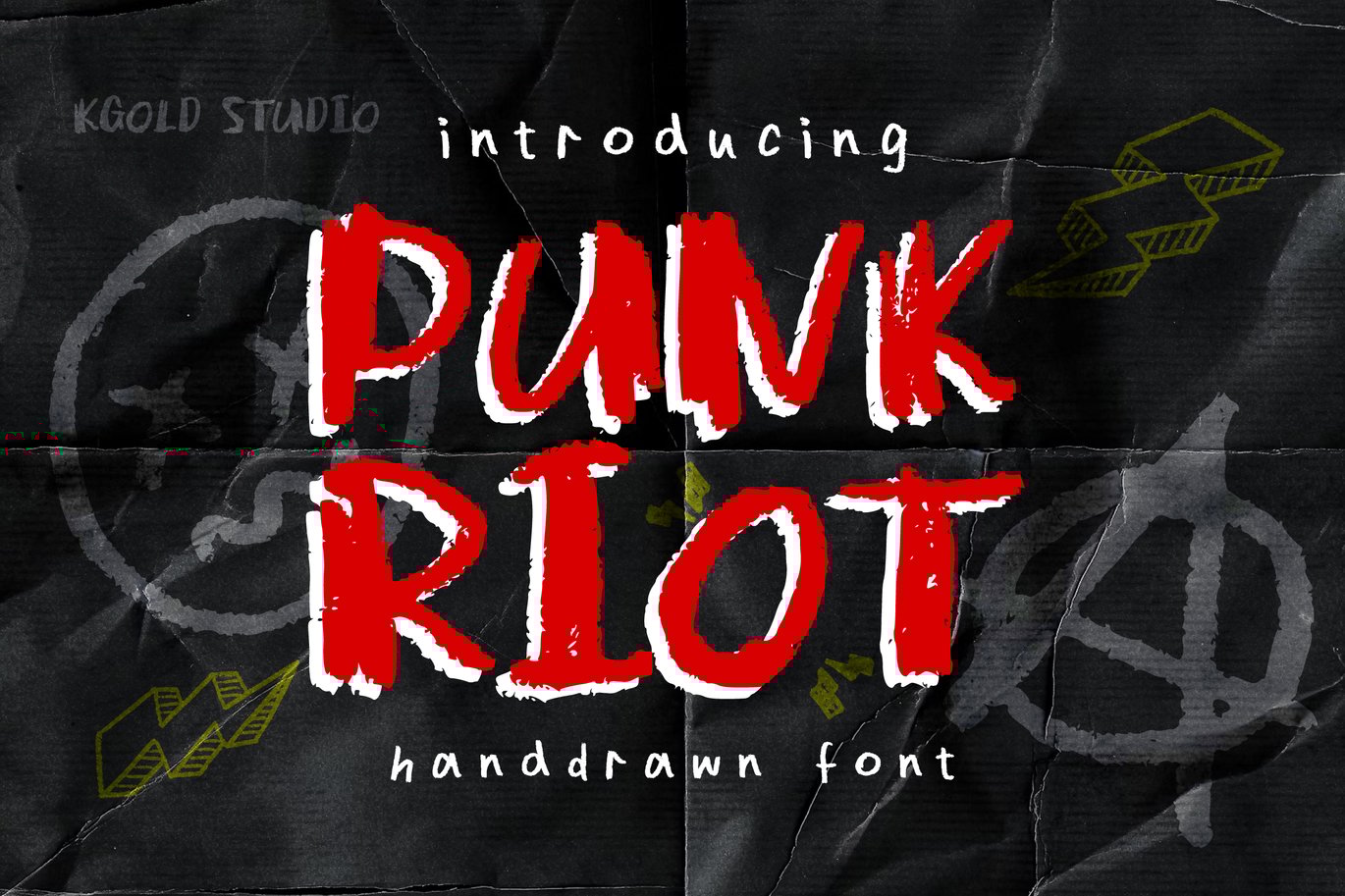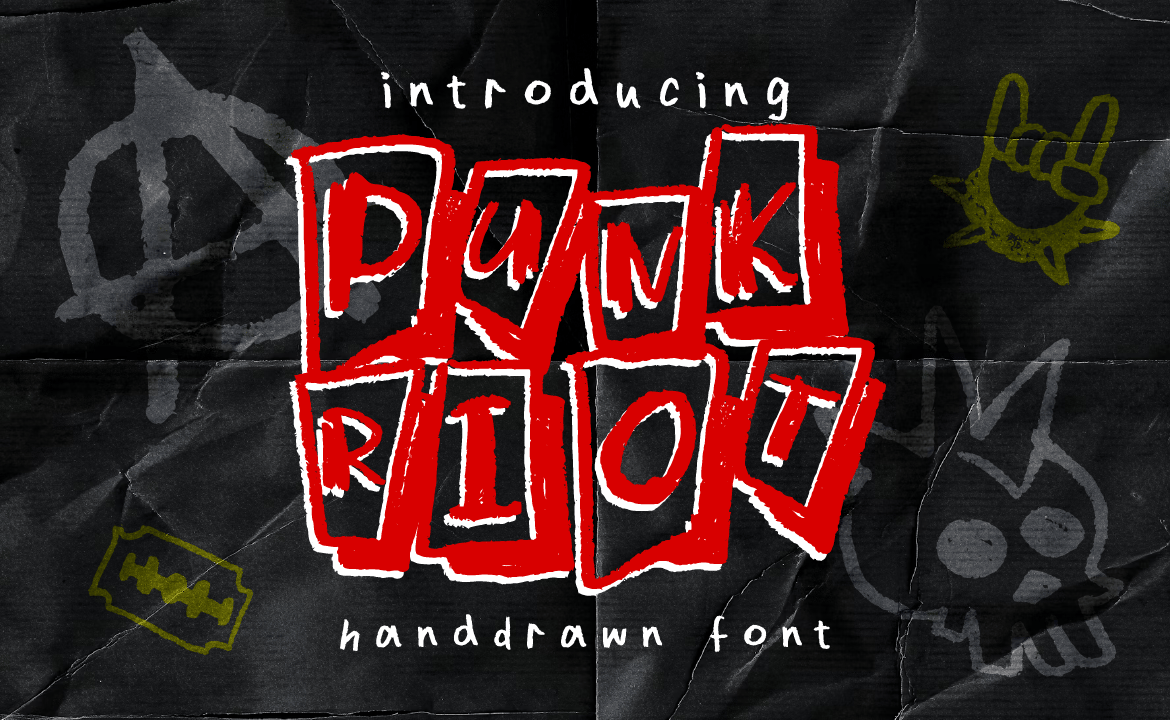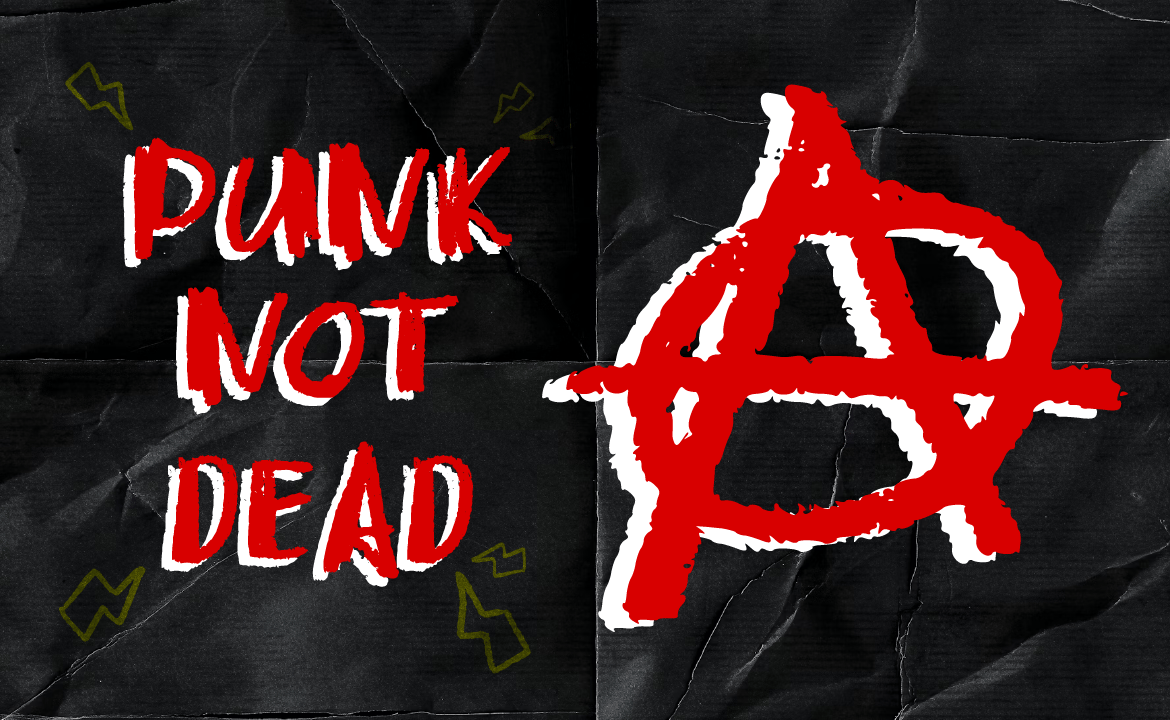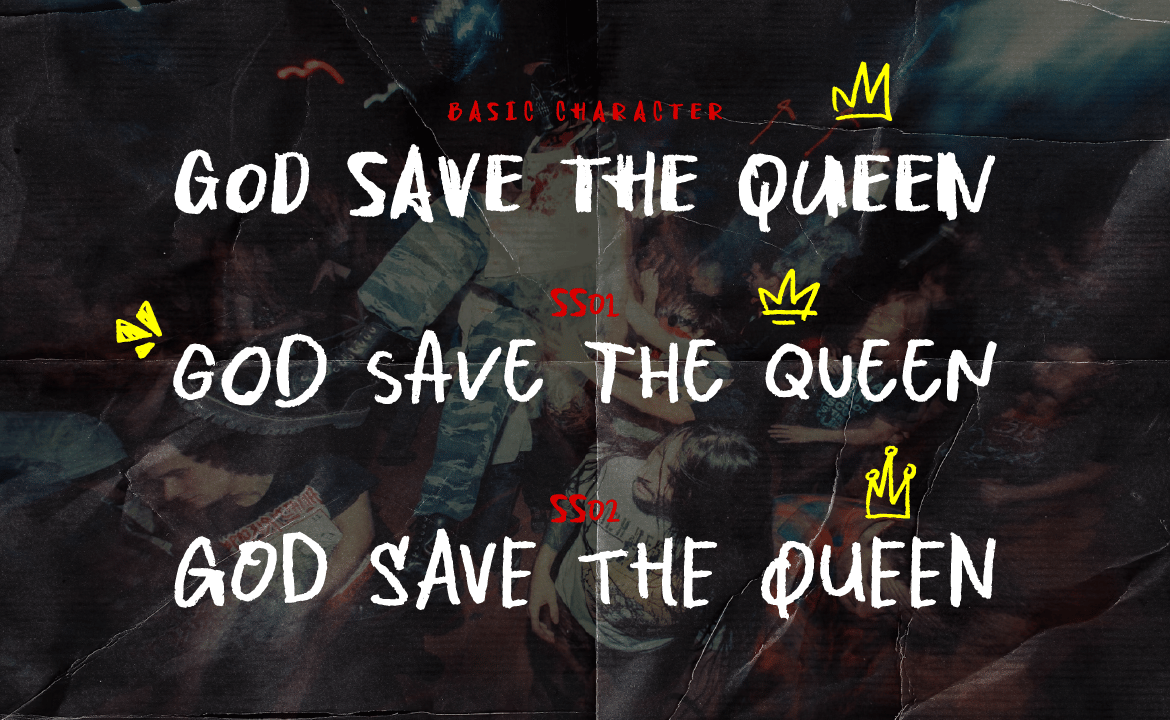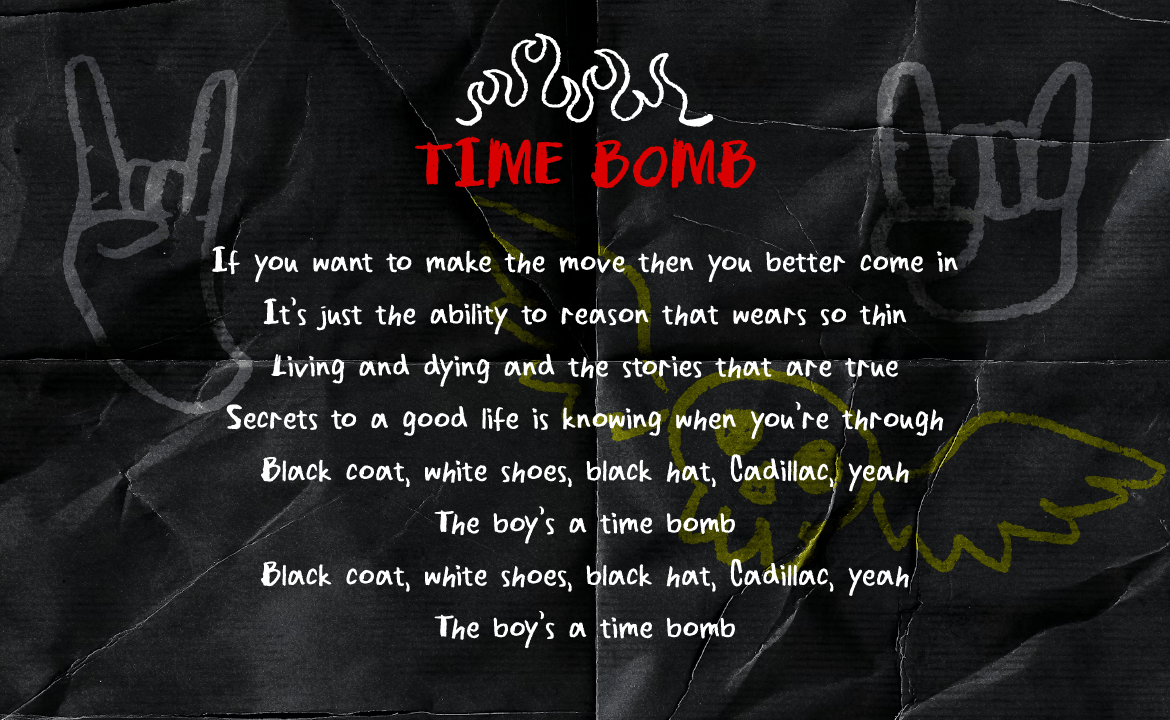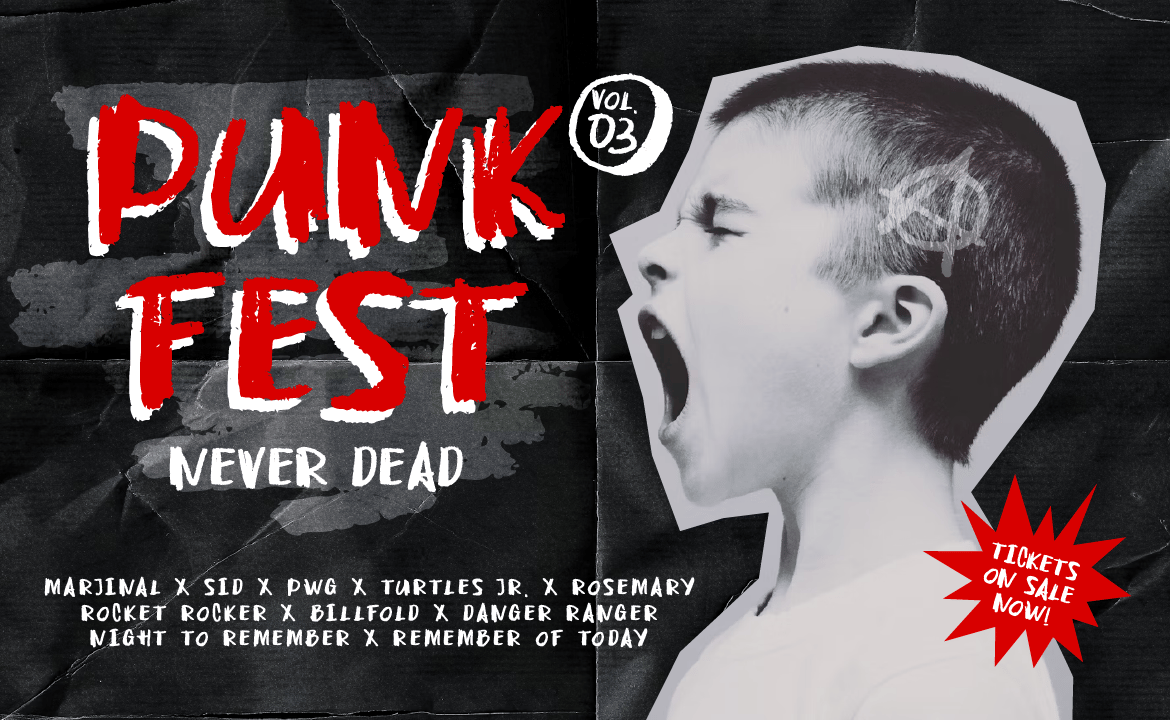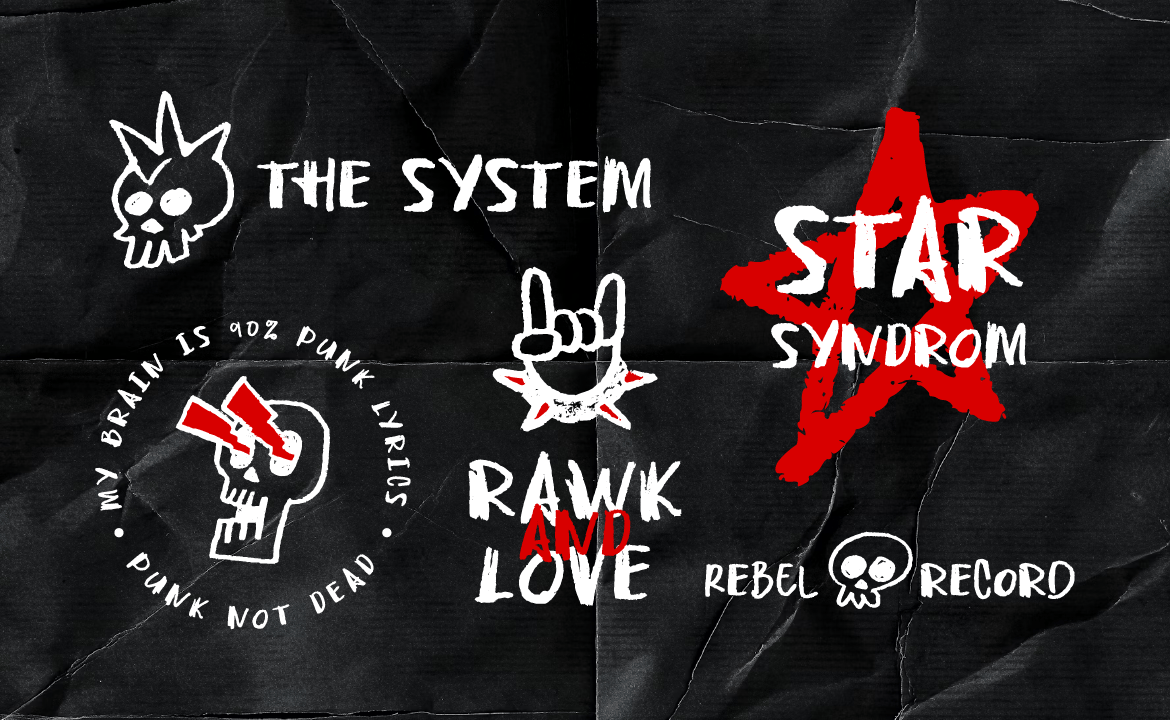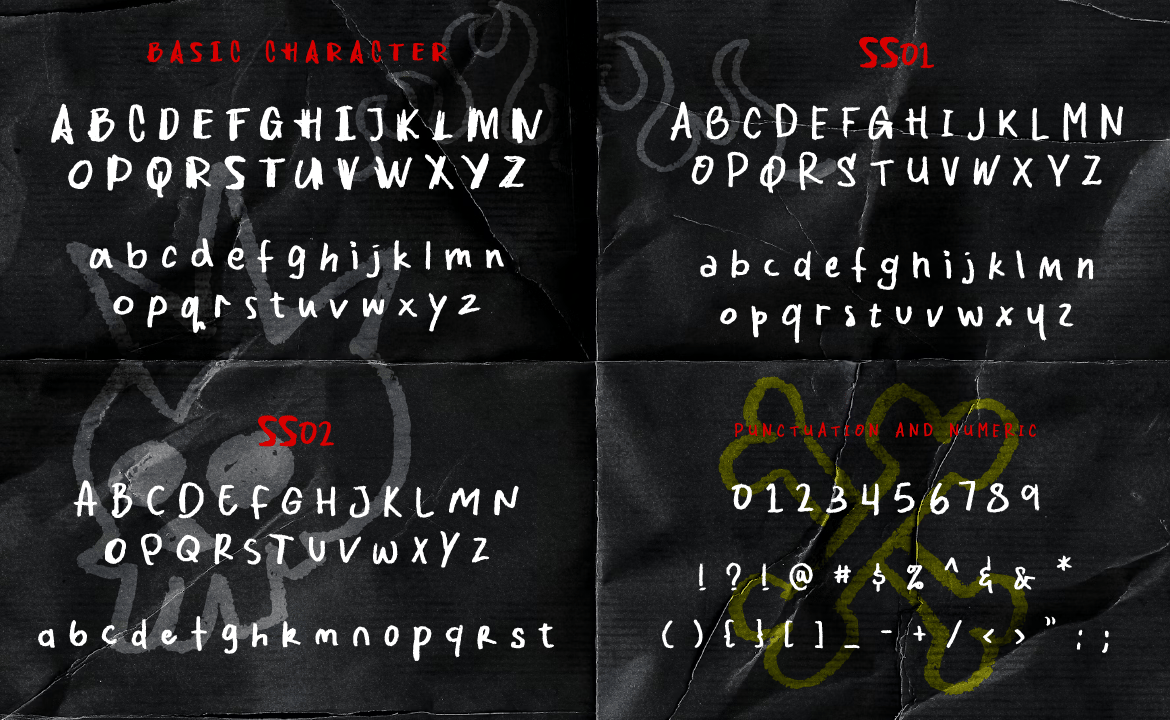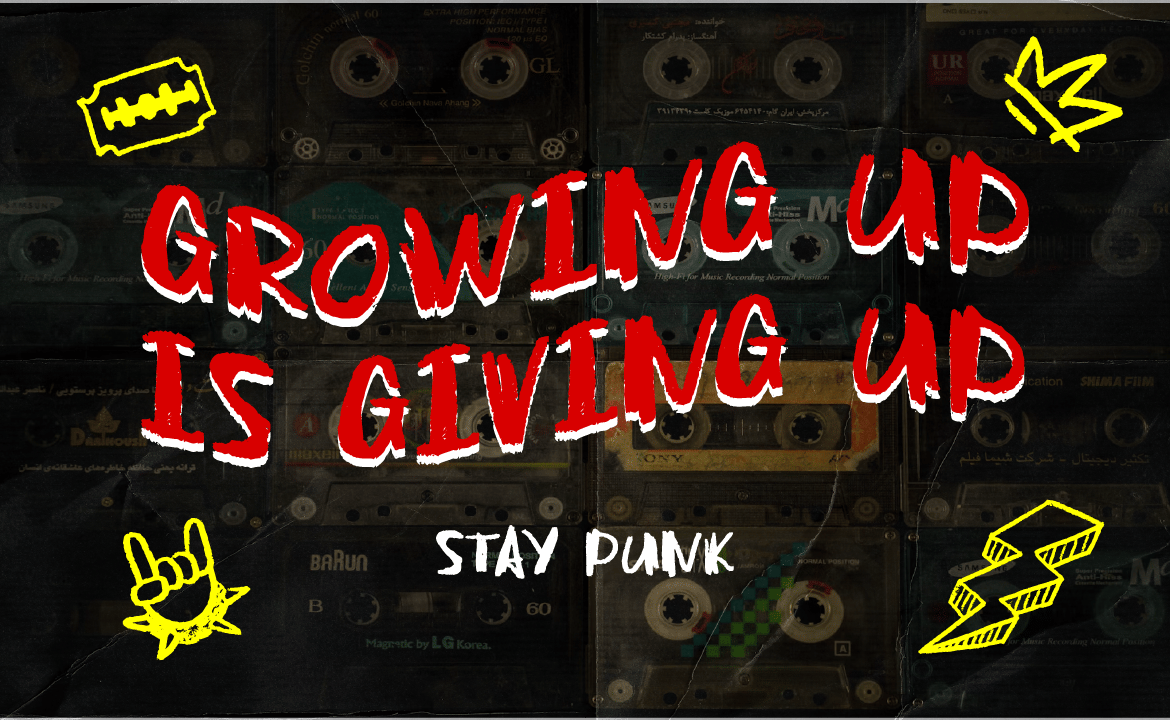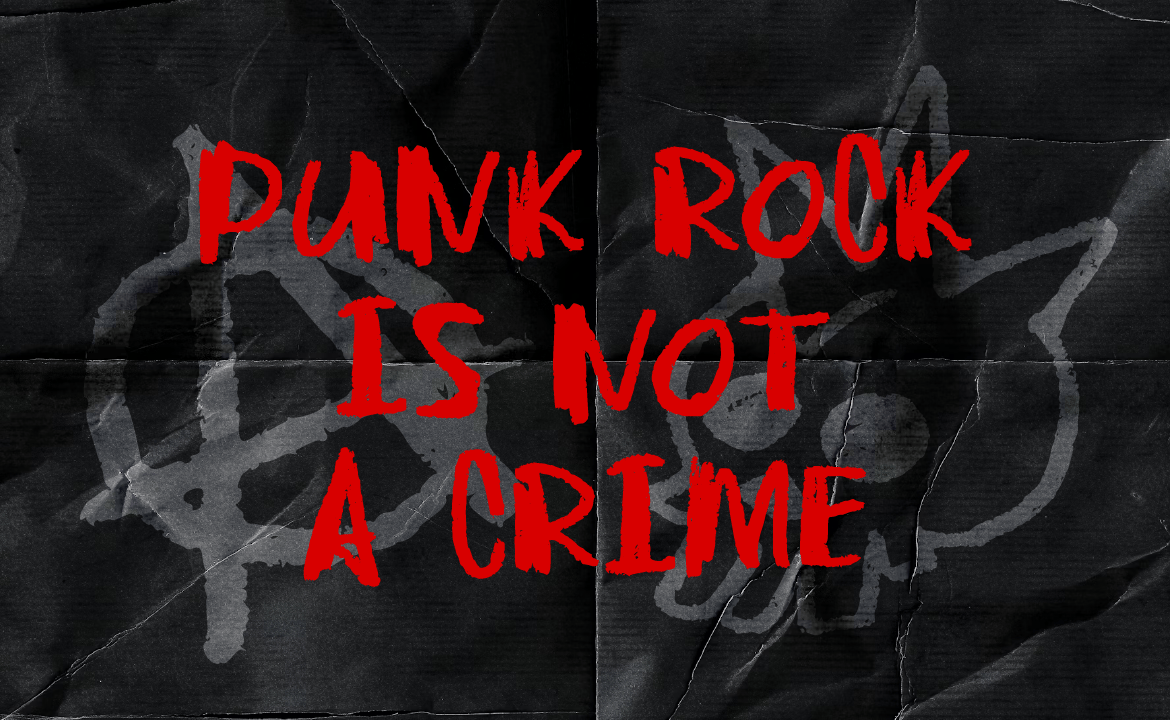
Punk Riot – HandDrawn Punk Font
Introducing Punk Riot – a hand-drawn, rebellious font inspired by the gritty, raw energy of punk rock. This font captures the DIY, chaotic style of the punk era, bringing bold character and attitude to your designs. Perfect for album covers, streetwear, posters, and anything that screams bold and unapologetic creativity.
Punk Riot includes three unique alternative styles:
- Punk Riot Raw – The original, rough-cut version with uneven edges and bold strokes, giving it an authentic hand-made look.
- Punk Riot Distressed – A more worn-out style with textured details, perfect for a grungy, weathered effect on any design.
- Punk Riot Clean – A cleaner variant that retains the boldness of punk while adding versatility for broader design contexts.
Each style of Punk Riot embodies the rebellious spirit of the punk scene, giving you the flexibility to mix and match styles or find the one that fits your project’s unique vibe.